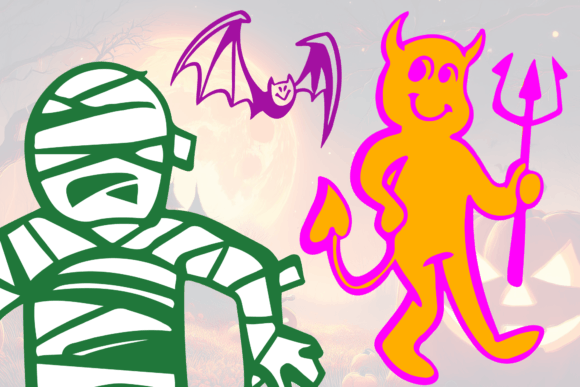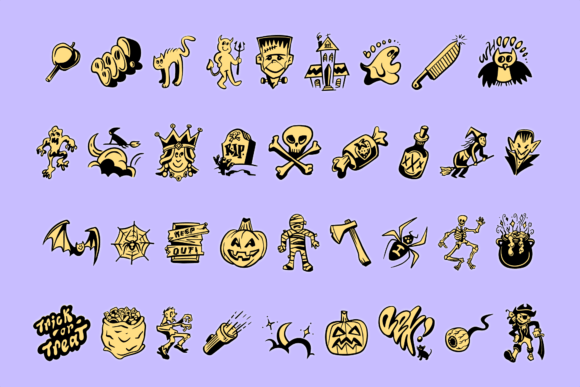
Unleash the Spooky Spirit with Halloweenies Font: A Comprehensive Guide
As the spookiest time of the year approaches, designers and crafters are on the lookout for the perfect font to add a touch of eerie elegance to their Halloween-themed projects. Look no further than Halloweenies Font, a delightful collection of dingbats that brings the haunted spirit to life. In this article, we’ll dive into the world of Halloweenies Font, exploring its features, uses, and benefits for designers and crafters alike.
What is Halloweenies Font?
Halloweenies Font is a unique and captivating dingbats font that embodies the essence of Halloween. This font features a vast array of creepy and kooky symbols, including skeletons, pumpkins, haunted houses, bats, ghosts, witches, and more. Each glyph is carefully crafted to add a touch of frightful fun to any project, making it perfect for designers and crafters seeking to create spooky and festive designs.
Key Features of Halloweenies Font
- Extensive Collection of Glyphs: Halloweenies Font boasts an impressive collection of eerie symbols, ensuring that you’ll find the perfect icon to complement your design.
- Playful and Festive Style: The font’s playful and festive style captures the essence of Halloween, making it ideal for party invitations, decorations, and seasonal crafts.
- Versatile and Easy to Use: Halloweenies Font is designed to be versatile and easy to use, allowing you to incorporate its spooky icons into various projects with ease.
- Perfect for Designers and Crafters: Whether you’re a professional designer or a crafty enthusiast, Halloweenies Font is the perfect addition to your font collection.
Uses for Halloweenies Font
Halloweenies Font is incredibly versatile and can be used in a wide range of projects, including:
- Party Invitations: Add a spooky touch to your Halloween party invitations with the font’s creepy icons.
- Decorations: Use Halloweenies Font to create festive decorations, such as garlands, banners, and signs.
- Seasonal Crafts: Incorporate the font’s eerie symbols into your seasonal crafts, such as Halloween cards, gift tags, and scrapbook pages.
- Digital Designs: Use Halloweenies Font to create spooky digital designs, such as social media graphics, blog posts, and email newsletters.
Halloweenies Font offers numerous benefits for designers and crafters, including:
- Unique and Eye-Catching Designs: The font’s creepy icons will help your designs stand out and grab attention.
- Time-Saving: With Halloweenies Font, you’ll have access to a vast collection of pre-designed glyphs, saving you time and effort.
- Increased Creativity: The font’s playful and festive style will inspire your creativity and help you come up with innovative design ideas.
- Professional-Quality Designs: Halloweenies Font is designed to produce professional-quality designs, making it perfect for designers and crafters who want to create high-end projects.
| Font Name | Halloweenies Font |
| Author | Ben Dunkle |
- Experiment with Different Sizes and Colors: Play around with different sizes and colors to create unique and eye-catching designs.